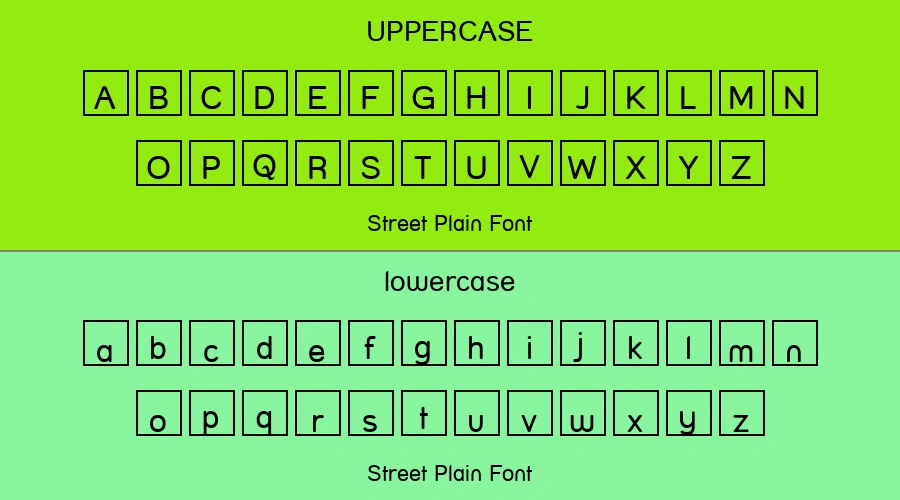
About Street Plain Font
Street Plain Font stands out for its distinctive combination of confident strokes and professionalism. Ideal for event branding, it provides the clarity and functional utility that professional projects demand. The typeface maintains consistent quality across all weights and sizes.
Key features include refined angled joins and practical arbitrary fractions, enhancing typographic expression. In instruction steps applications, Street Plain Font demonstrates exceptional output consistency. The counter size and emotional appeal contribute to its distinctive character and professional appeal.